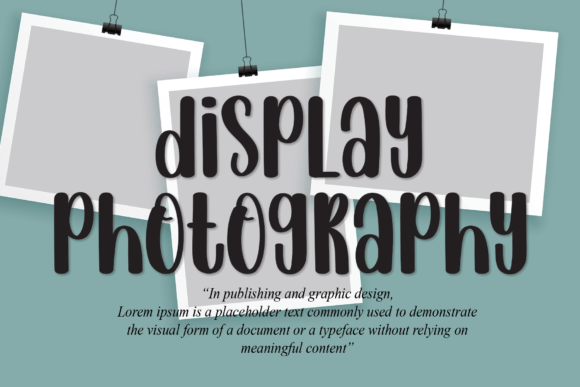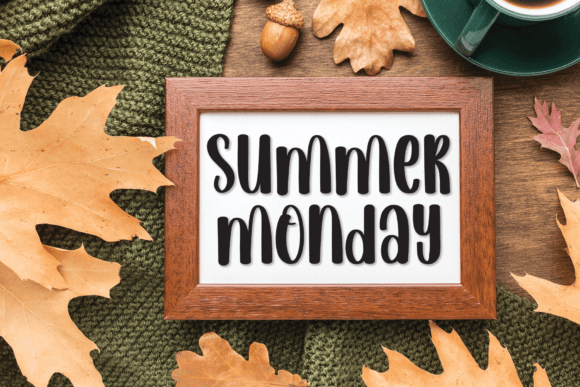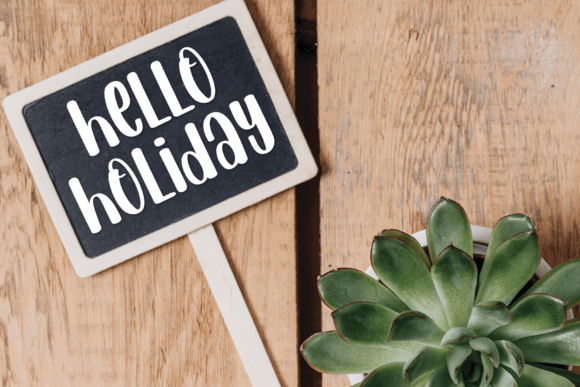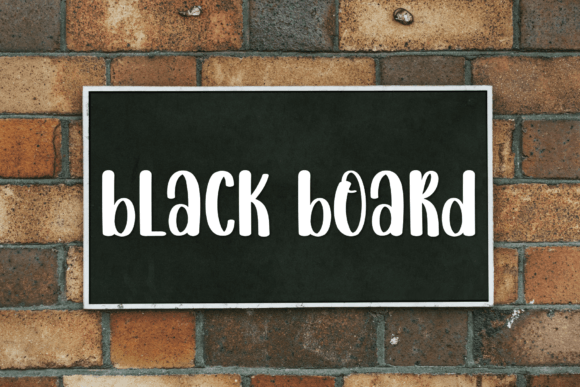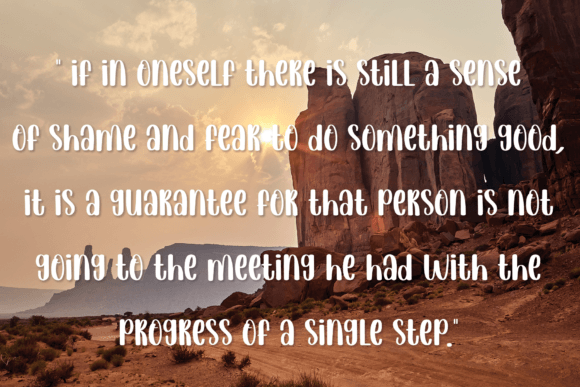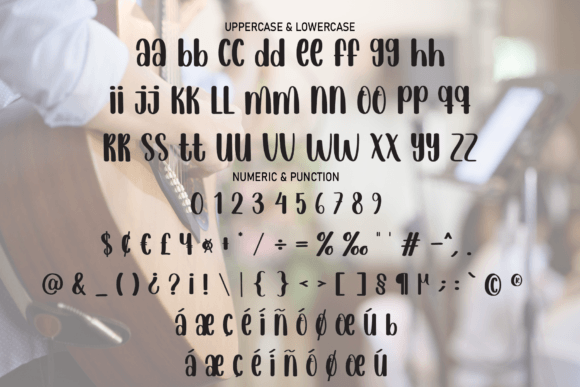
Introducing Guest Star Font: The Ultimate Casual Handwritten Font for Designers and Crafters
Are you tired of using the same old fonts for your designs and crafts? Look no further! Guest Star Font is a cool and casual handwritten font that’s perfect for adding a personal touch to your projects. Whether you’re a designer, crafter, or simply someone who loves making greeting cards, Guest Star Font is sure to become your new favorite go-to font.
What Makes Guest Star Font So Special?
Guest Star Font is a unique and stylish handwritten font that’s designed to add a touch of personality to your designs. Its casual and relaxed vibe makes it perfect for a wide range of projects, from digital designs and presentations to crafts and greeting cards. The font’s versatility is one of its standout features, making it suitable for various occasions and uses.
Uses for Guest Star Font
So, what can you use Guest Star Font for? The possibilities are endless! Here are a few ideas to get you started:
- Crafts: Add a personal touch to your handmade crafts, such as journals, scrapbooks, and DIY projects.
- Digital Design: Use Guest Star Font in your digital designs, including social media graphics, blog posts, and website headers.
- Presentations: Add a touch of personality to your presentations and make them more engaging.
- Greeting Cards: Create beautiful and unique greeting cards for special occasions, such as birthdays, holidays, and weddings.
Why Designers and Crafters Love Guest Star Font
So, what is it about Guest Star Font that designers and crafters love so much? Here are a few reasons:
- Unique Style: Guest Star Font has a unique and stylish handwritten look that’s sure to stand out.
- Easy to Read: The font is easy to read, making it perfect for use in digital designs and physical crafts.
- Versatile: Guest Star Font is versatile and can be used for a wide range of projects and occasions.
- High-Quality: The font is high-quality and comes in a range of formats, making it easy to use and incorporate into your designs.
Tips for Using Guest Star Font
Here are a few tips for using Guest Star Font in your designs and crafts:
- Experiment with Sizes: Try using Guest Star Font in different sizes to add visual interest to your designs.
- Pair with Other Fonts: Experiment with pairing Guest Star Font with other fonts to create unique and interesting combinations.
- Add Colors and Textures: Add colors and textures to your designs to make them more visually appealing.
- Use for Headings and Titles: Use Guest Star Font for headings and titles to add a touch of personality to your designs.
In conclusion, Guest Star Font is a cool and casual handwritten font that’s perfect for designers and crafters. Its unique style, ease of use, and versatility make it a great addition to any design or craft project. Whether you’re looking to add a personal touch to your digital designs, crafts, or greeting cards, Guest Star Font is sure to become your new favorite go-to font.